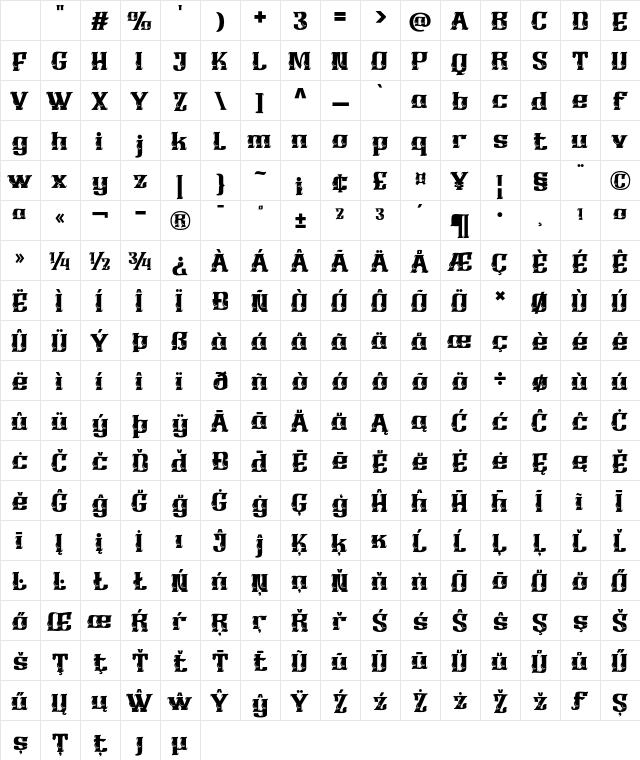
Complete OBITRUK Trial Regular glyph index. Displaying only characters natively supported by OBITRUK Trial Regular font.
OBITRUK Trial is a composed and adaptable typeface that performs quietly and consistently across a wide range of design contexts.